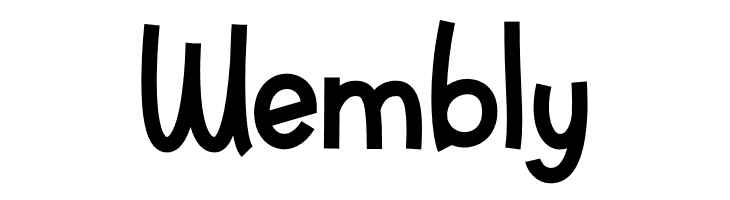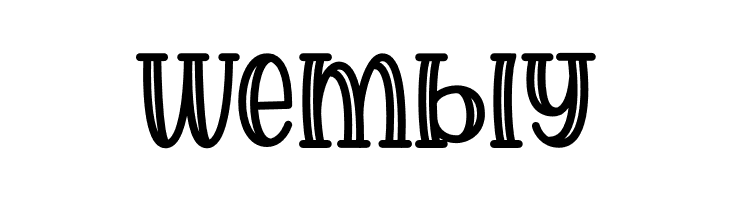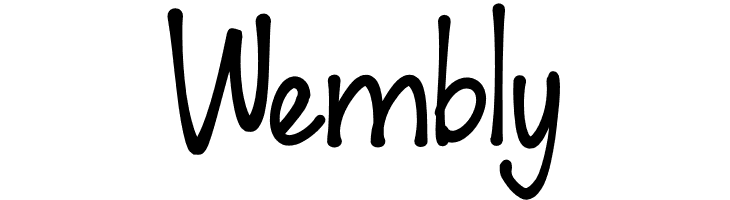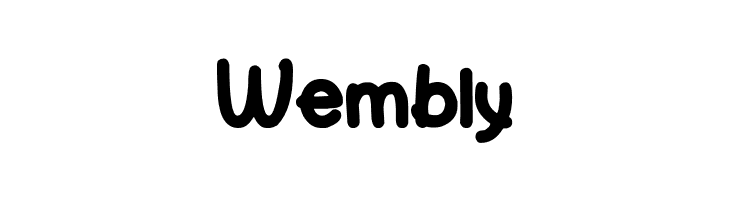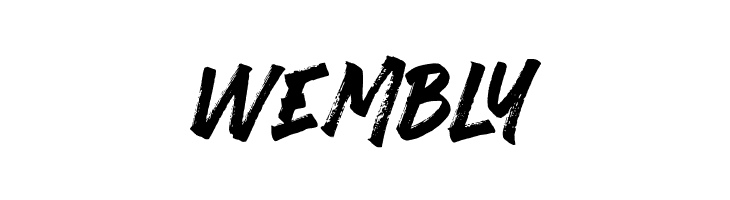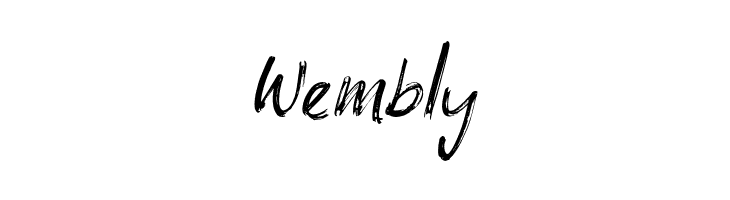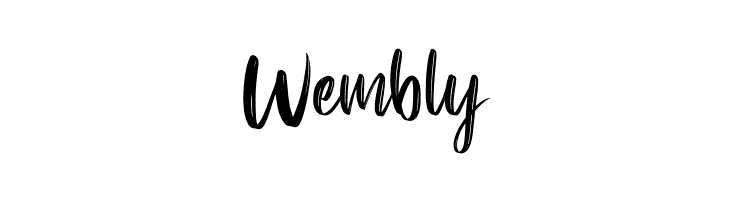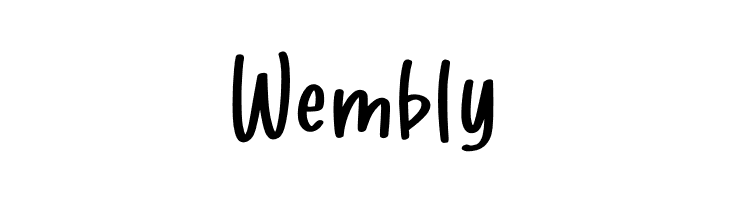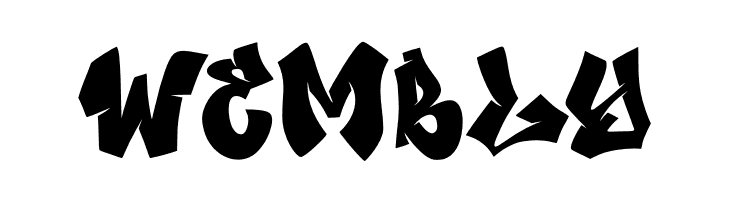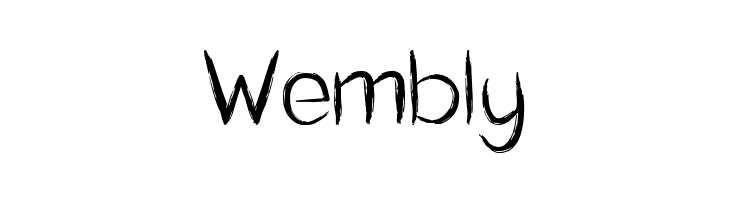
Funtastic Font
A dynamic and expressive script font with fluid, flowing letterforms.
Choco Cookies Font
A playful, bold font with rounded, whimsical letterforms.
Cherry Bird Demo Font
A playful, bold handwritten font with rounded, whimsical characters.
Boughies Demo Font
A bold, playful script font with a handwritten feel.
Moontells Font
A bold, brush-style font with dynamic strokes and artistic flair.
Birdrockers Font
A bold, brush-style font with dynamic, handwritten flair.
Gold Grater Demo Font
A bold, hand-painted style font with a dynamic and artistic flair.
Lattetude Font
A bold, dynamic script font with flowing cursive letterforms.
Astina Font
A graceful script font with flowing, interconnected letters and bold numerals.
Asterik Demo Font
A bold, dynamic script font with a handwritten feel.
Dellana Font
A bold, expressive handwritten font with a brush-like texture.
Little Betty Font
A playful and elegant script font with bold strokes and high contrast.
Mustank Font
A fluid and elegant handwritten script with dynamic strokes.
Blaster Easter Font
A playful, bold handwritten font with rounded, energetic letterforms.
Aligore Font
A bold, expressive script font with flowing, cursive letterforms and decorative flair.
Abhayas Font
A cursive, handwritten-style font with elegant, flowing strokes.
Bring Heart Font
An elegant script font with flowing, interconnected letters and ornate flourishes.
Netigen Regular Font
A playful, bold, and rounded font with a hand-drawn style.
Timberluck Font
A dynamic handwritten font with fluid, expressive strokes.